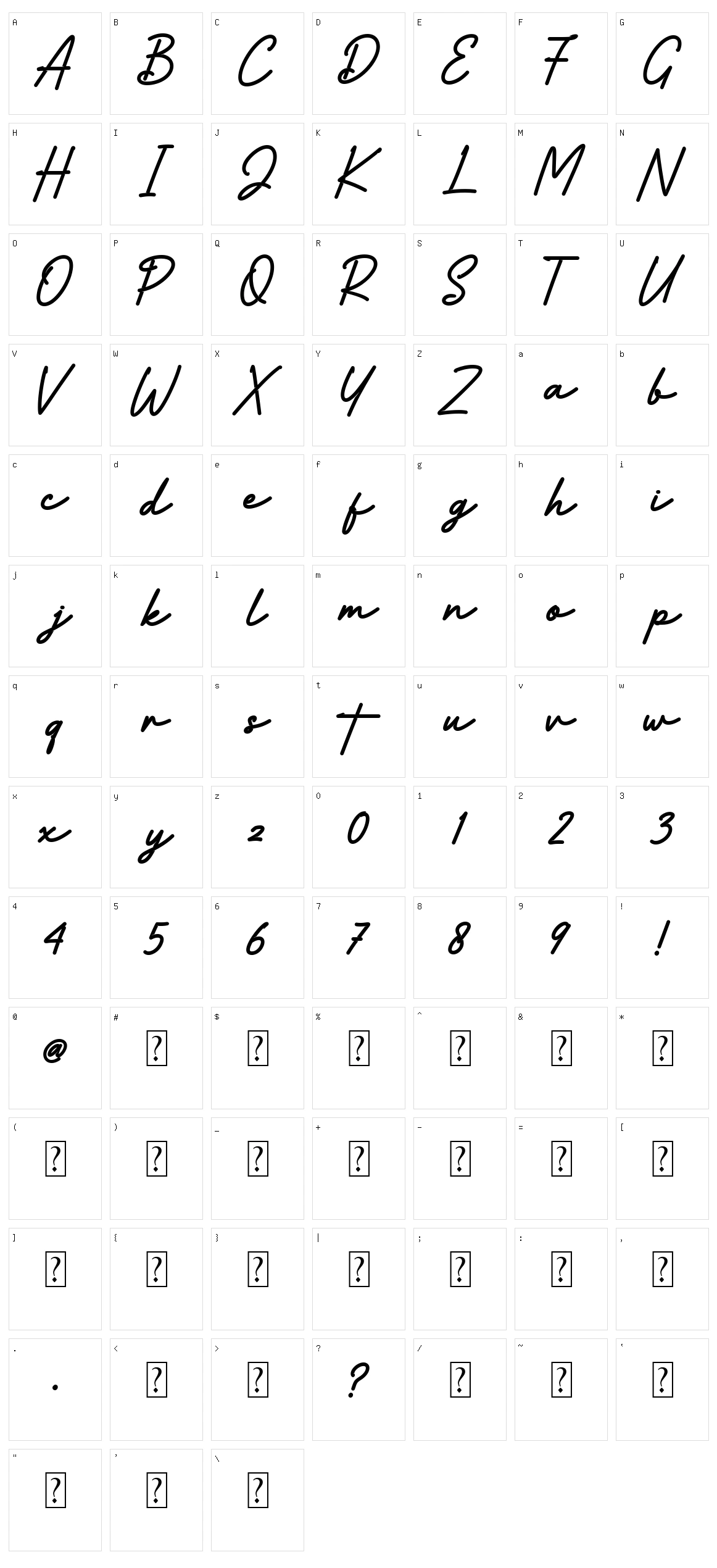
"BARTOLOMEO - Monoline Script Fonts"
designed by Taufik Tri Ariyanto and published by Ariya Works Studio (OPXWORKS.Std)
Bartolomeo is a modern script font, has an elegant design with a handwritten feel, but with a thicker size.
This fonts will make your design look exclusive, simple and authentic.
It offers support for all English characters, some opentype features (alternate, contextual alt, ligature and swashes),
several characters in different languages and standard punctuation included.
Bartolomeo is designed specifically for signature logos, logotype,
handwritting, branding, advertising, clothing, and manymore.